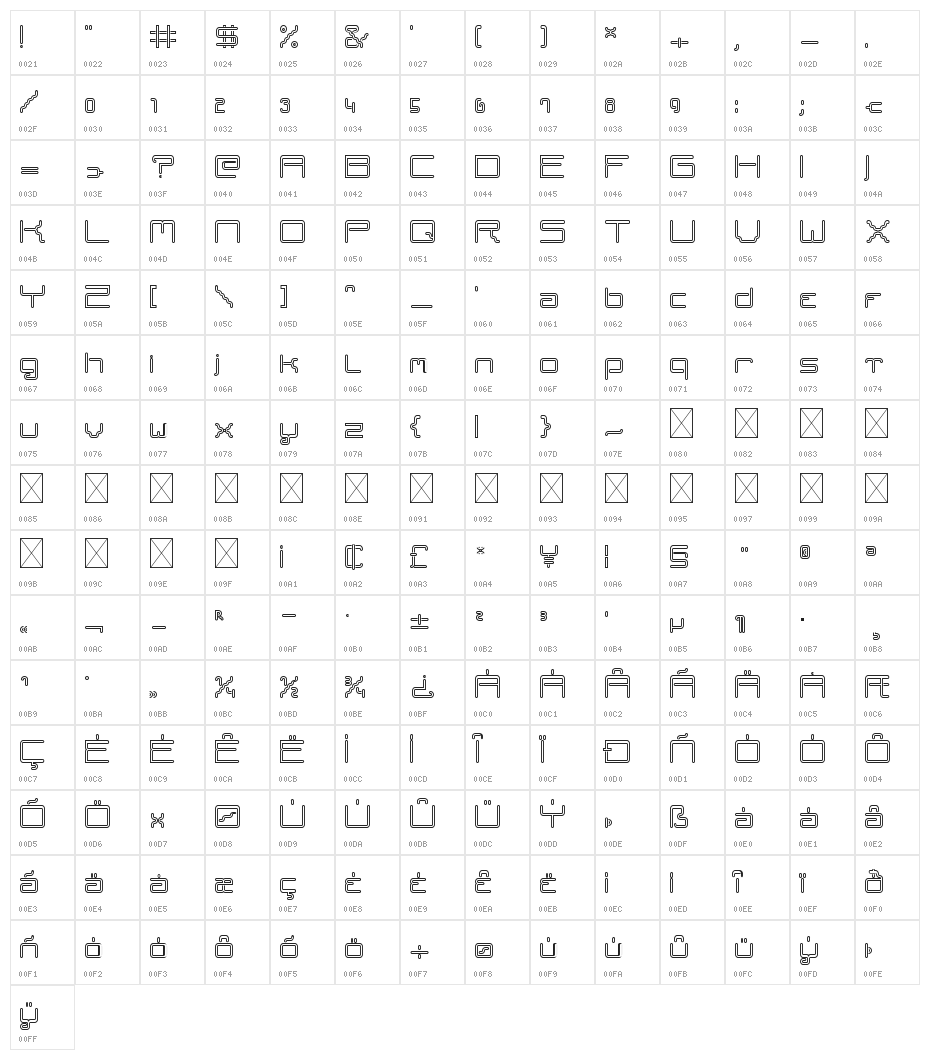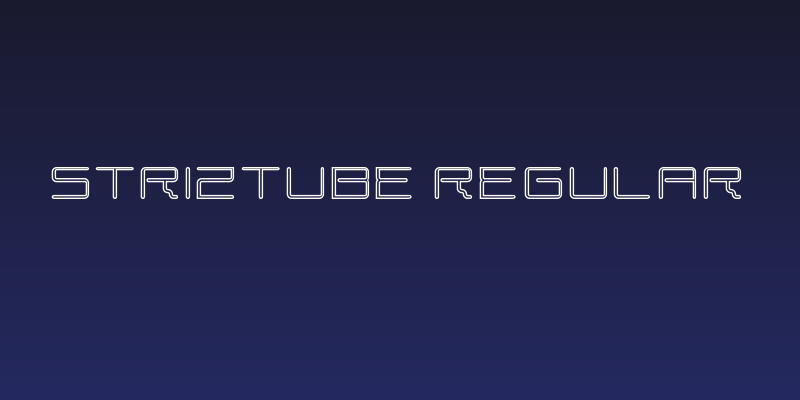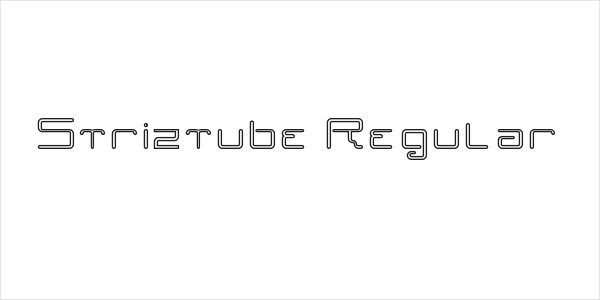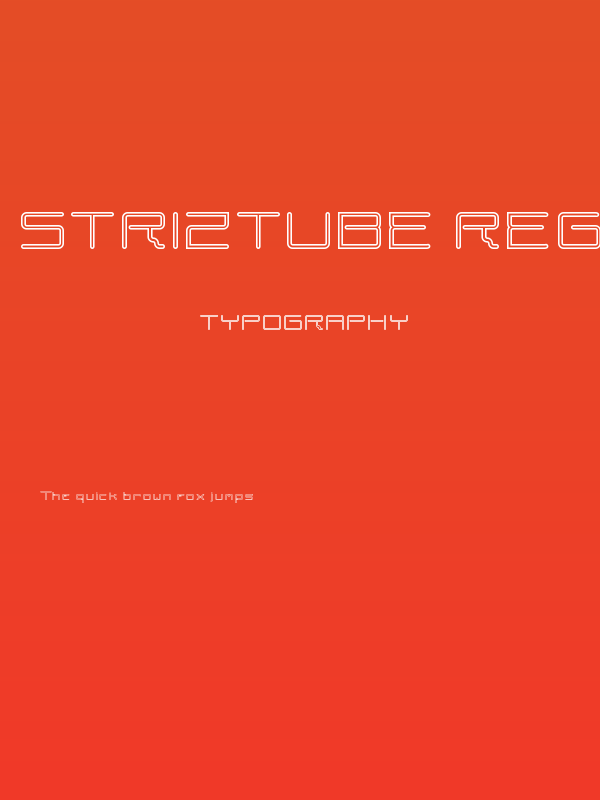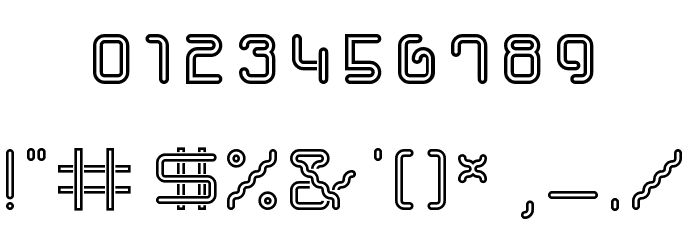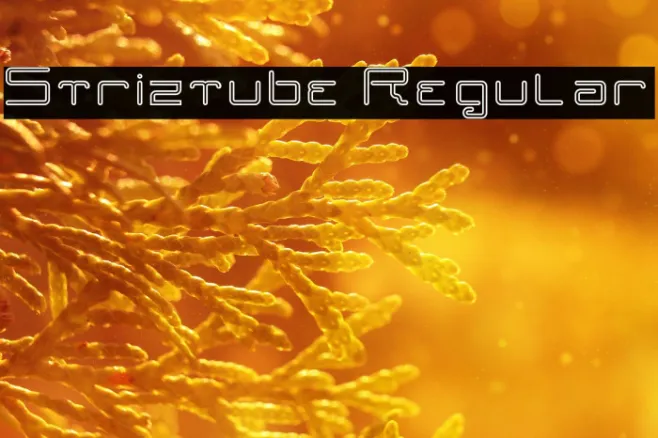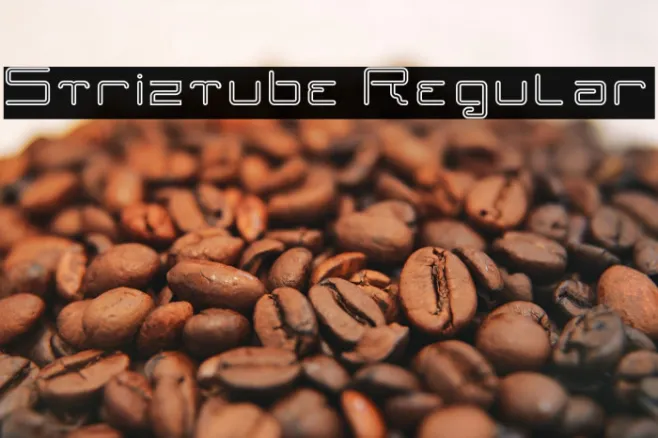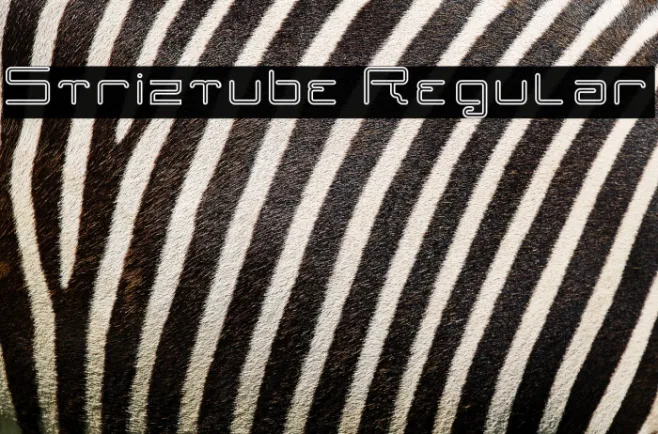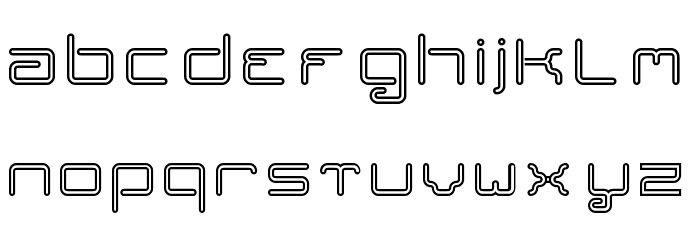
Striztube Regular Font
Striztube Regular Description
This font features a unique, futuristic design with a hollow, tubular appearance. Each character is constructed with a consistent line thickness, creating a clean and modern aesthetic. The uppercase and lowercase letters maintain a geometric structure, with some characters incorporating unexpected angles and curves that add a distinctive flair. The numerals and special characters follow the same design principles, ensuring a cohesive look across all glyphs. This font's style is both playful and sophisticated, making it suitable for a variety of creative applications.